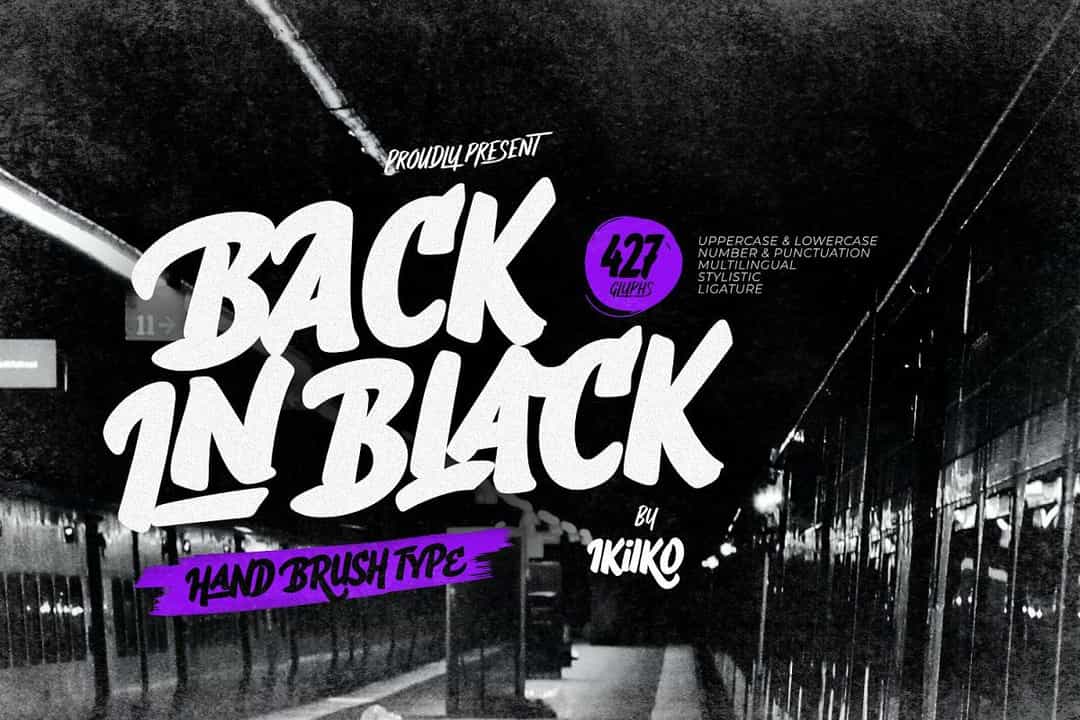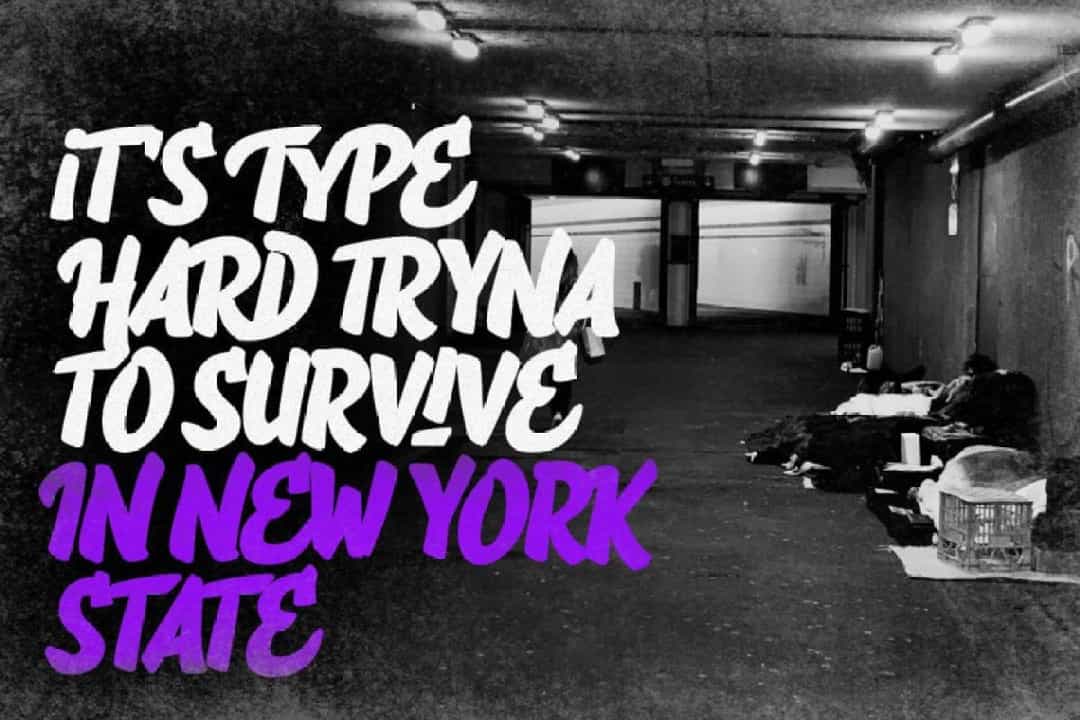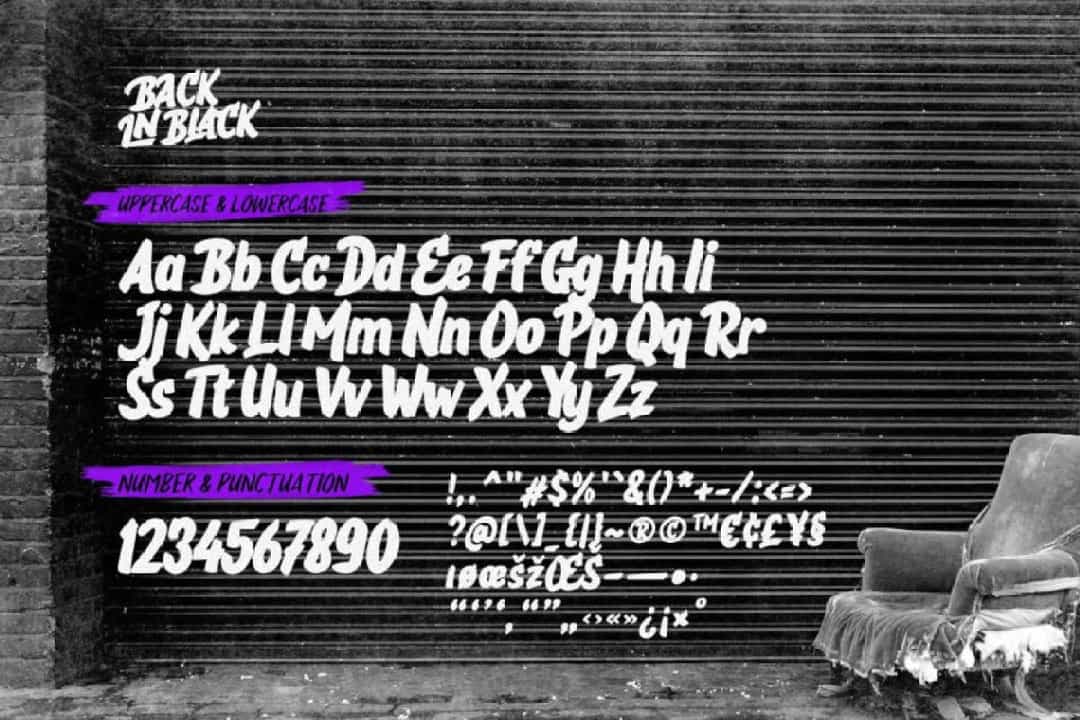
Back In Black is a hand-drawn brush typeface created by ikiiko that captures the urban feel of suburban walls with bold strokes to evoke graffiti-inspired designs and other types of graffiti art. It boasts stunning, eye-catching images due to its use of strong strokes which create stunning, eye-catching images.